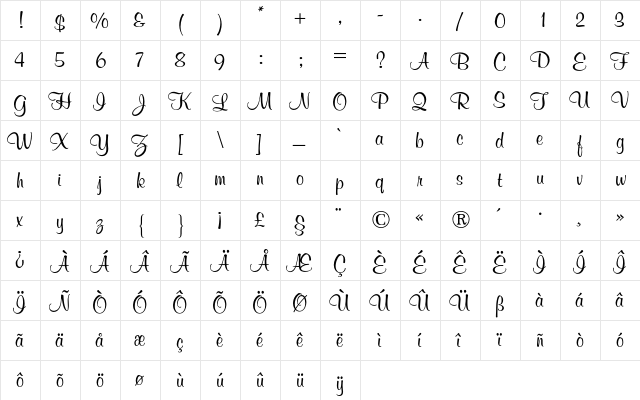
Murray Hill BQ Regular
Design Context for Murray Hill BQ Typeface
Murray Hill BQ is a composed and adaptable typeface that performs quietly and consistently across a wide range of design contexts.